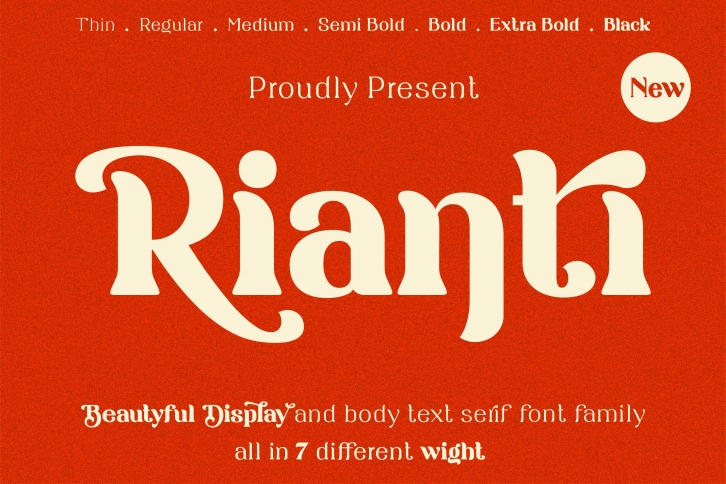
Rianti is a great font that was designed by Lone Army. Imagine the amount of combinations you can create using this font! The archive is 4.93 MB and it was released on February 6, 2020. Rianti looks beautiful on wedding invitations, greeting cards, logos, posters, labels, t-shirt designs, logos, business cards and is perfect for use in ink or watercolor works, fashion, magazines, packaging and food menus, children's books and more!